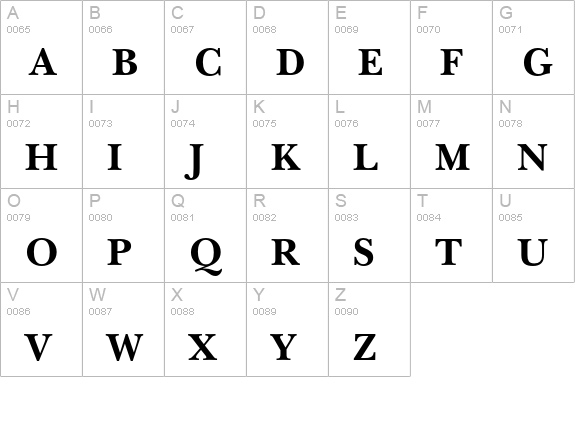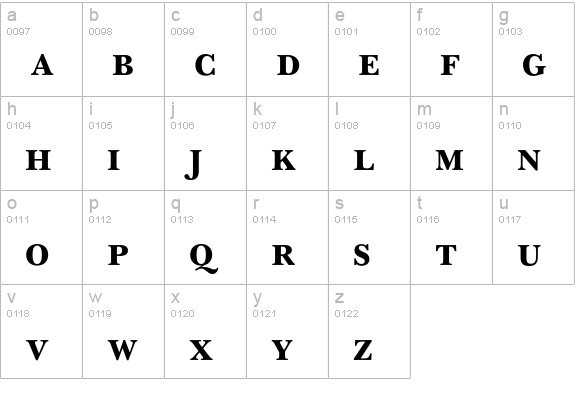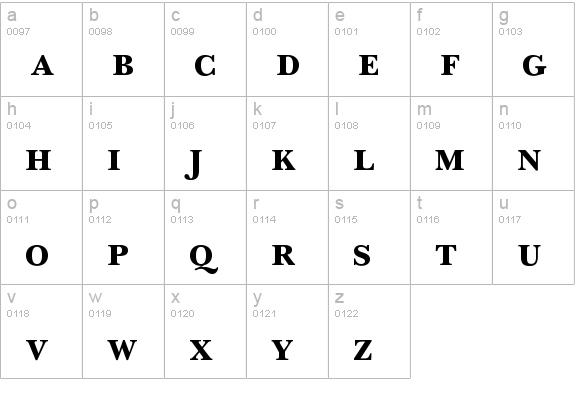
ITC New Baskerville Bold Small Caps & Old Style Figures Font Details
ITC New Baskerville Bold Small Caps & Old Style Figures is a strong, high-contrast variant in the ITC typeface family \xE2\x80\x94 well suited to headlines, attention-grabbing titles, and strong calls-to-action.
ITC New Baskerville Bold Small Caps & Old Style Figures font is a classic and elegant typeface that exudes sophistication and refinement. With its bold small caps and old-style figures, this font is perfect for adding a touch of timeless beauty to any design project. The strong and distinctive letterforms of ITC New Baskerville Bold Small Caps & Old Style Figures font make it ideal for use in headings, titles, and other prominent text elements where you want to make a statement. Its clean lines and traditional style give it a sense of authority and professionalism that is perfect for corporate communications, invitations, and more. And the best part? This exquisite font is available for free download at FontsMarket.com, making it accessible to anyone looking to elevate their design projects with a touch of classic elegance. Upgrade your typography game with ITC New Baskerville Bold Small Caps & Old Style Figures font today!